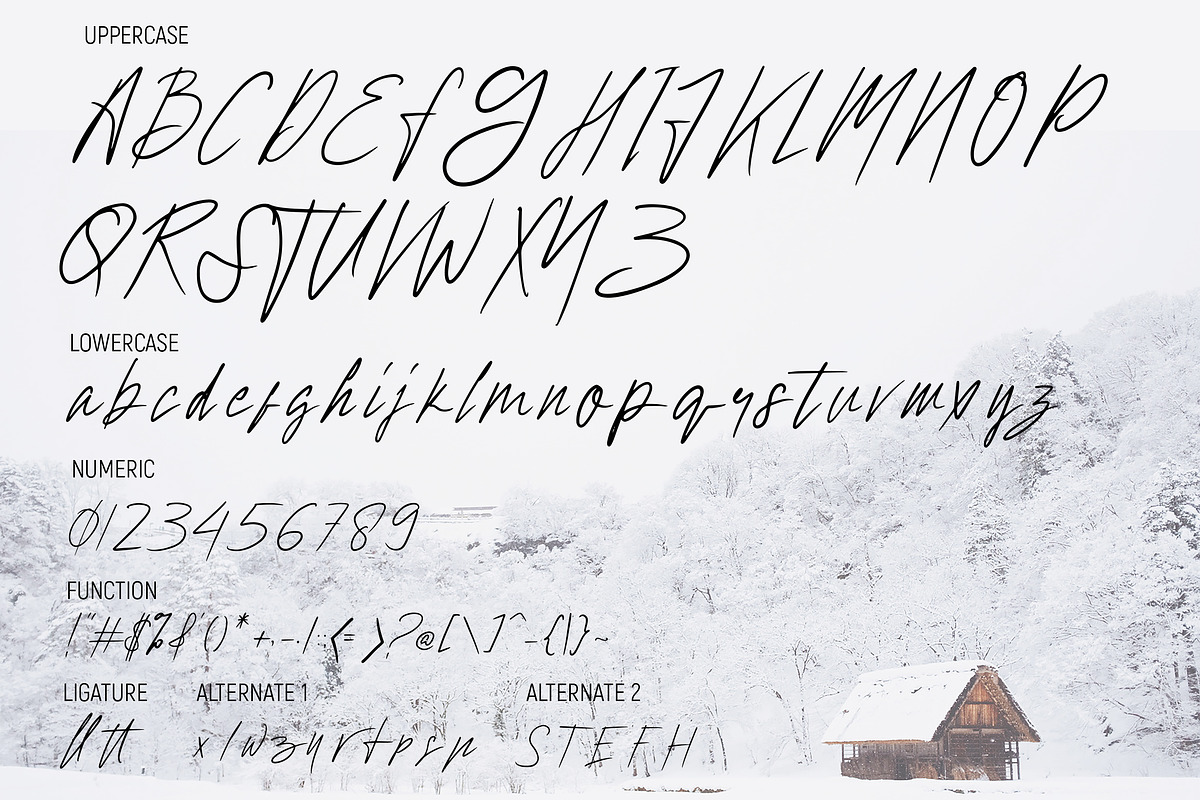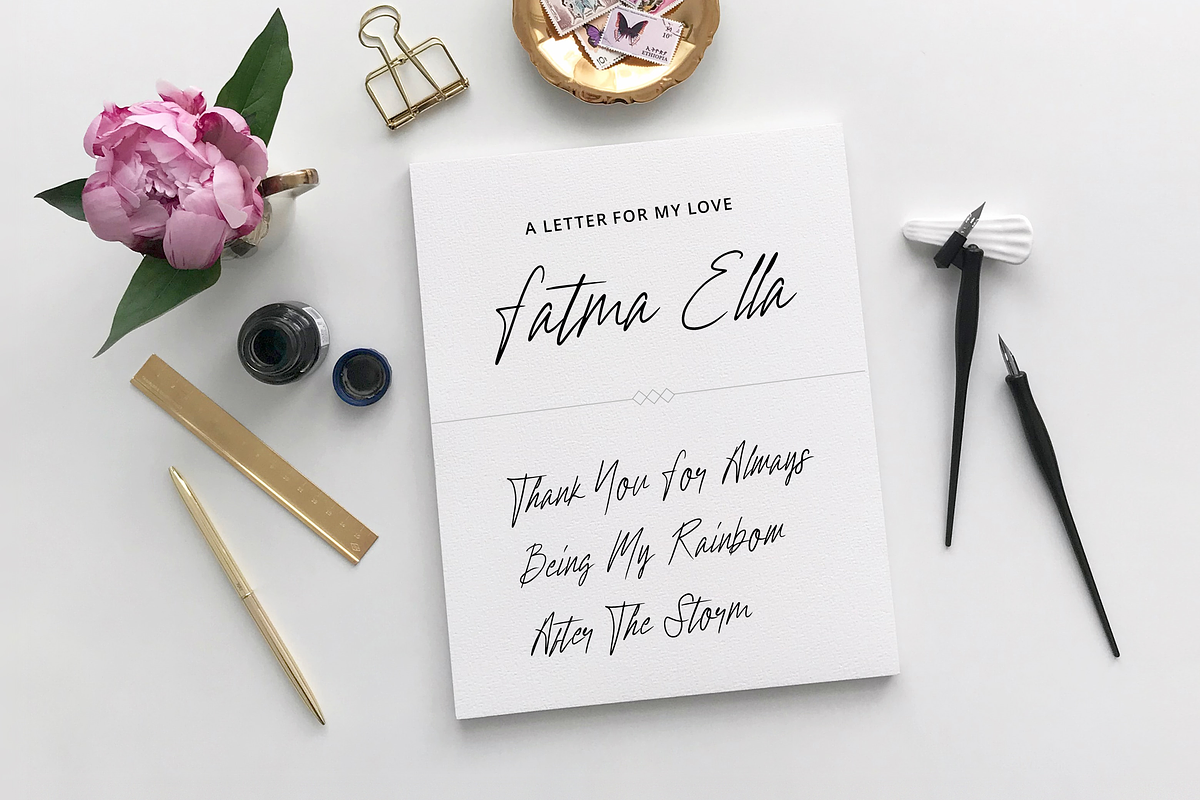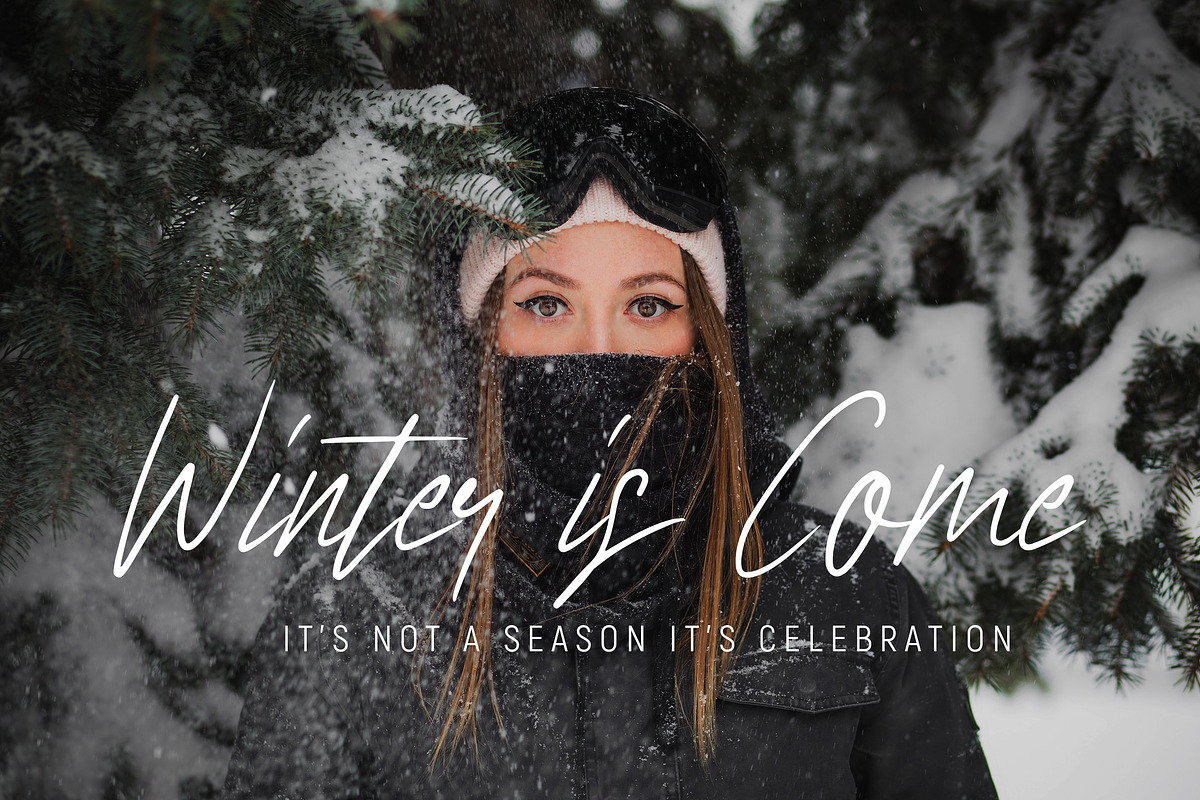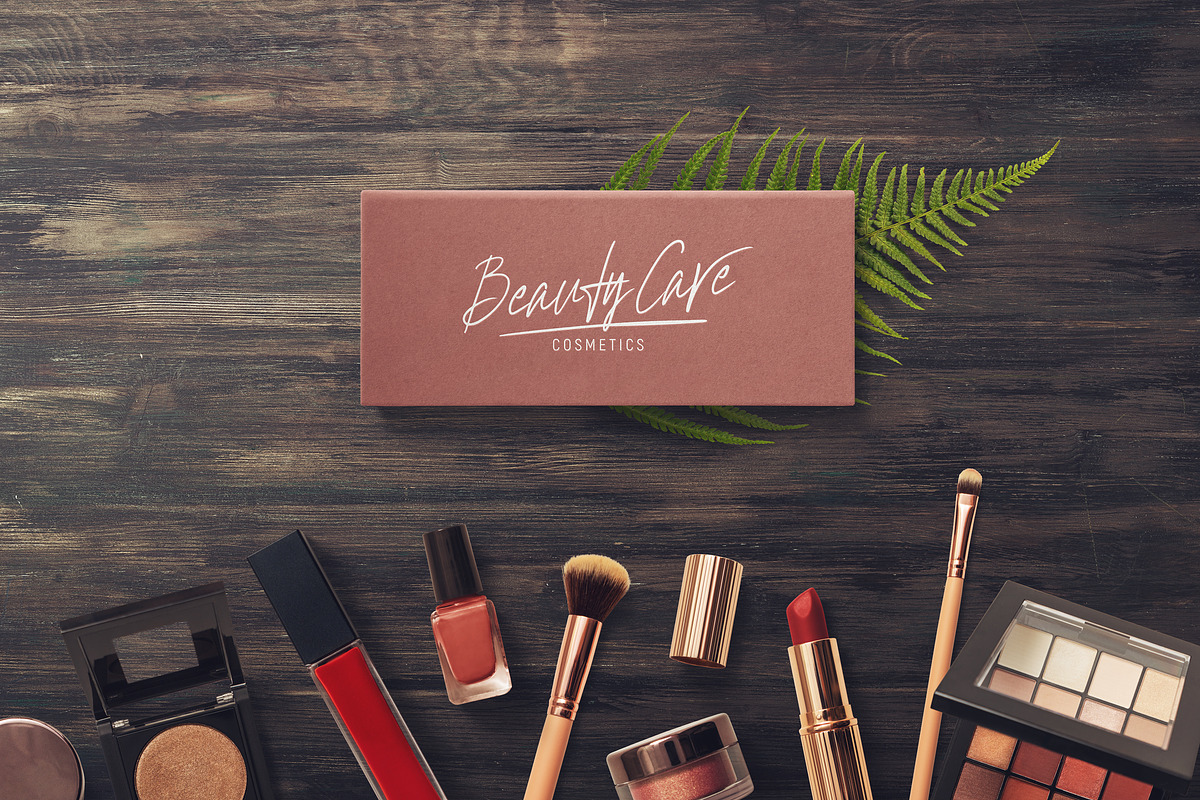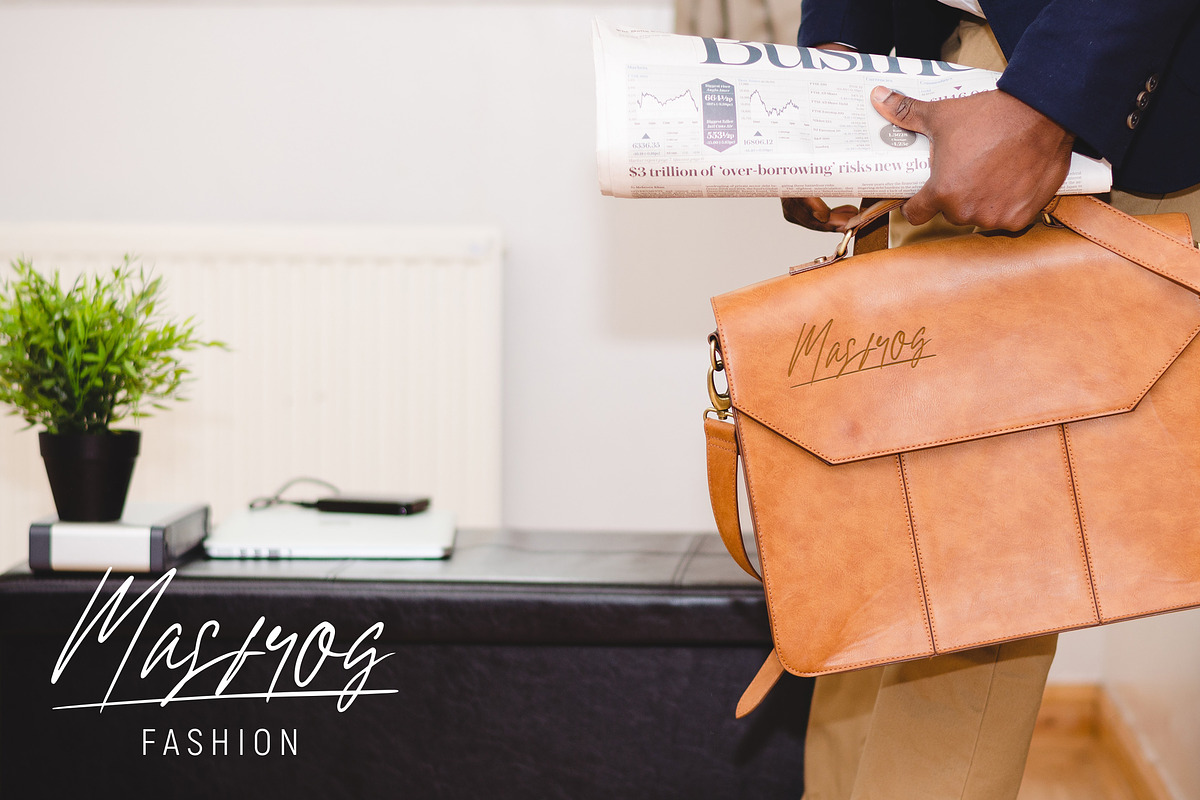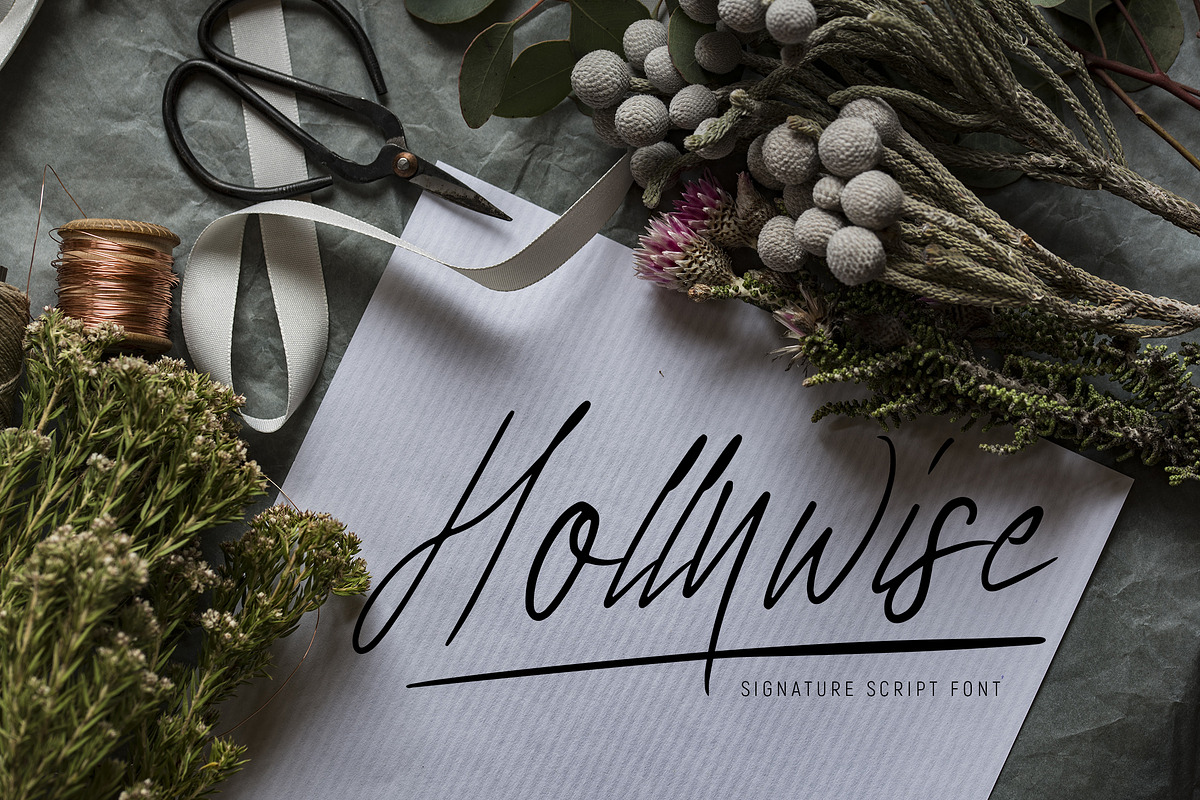
Hollywise - Signature Script Font
Introducing Hollywise - Signature Script Font
This Font can be used for any variety of purposes, such as: Signature, Photography, Wedding Ceremony, Invitation, Packaging, Logo Type, Branding Design, Fashion and also can be used for Business purpose.
- This Font Template contains Modern, Elegant, Creative, Professional and Unique Concept.
Why Hollywise - Signature Script Font is worth a look
Hollywise - Signature Script Font by StringLabs fits naturally into Branding, posters, packaging, typography.